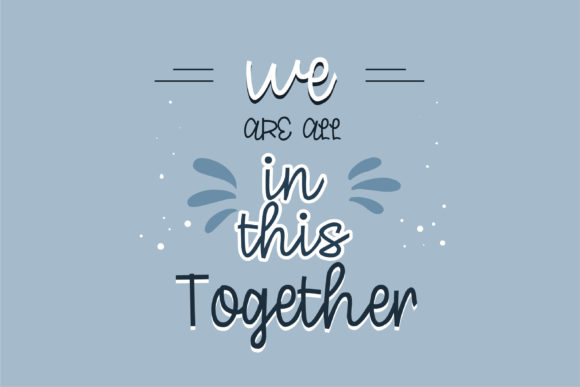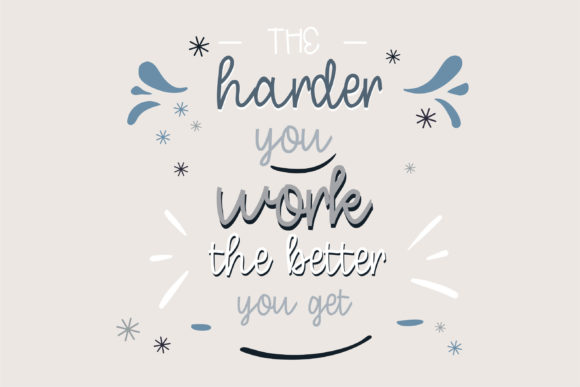
PN Pipalou Font
db-ku.com - Script & Handwritten -- PN Pipalou is a sweet and bouncy handwritten font that is crafted with great care for maximum results. It will add elegance and class to any of your design projects.